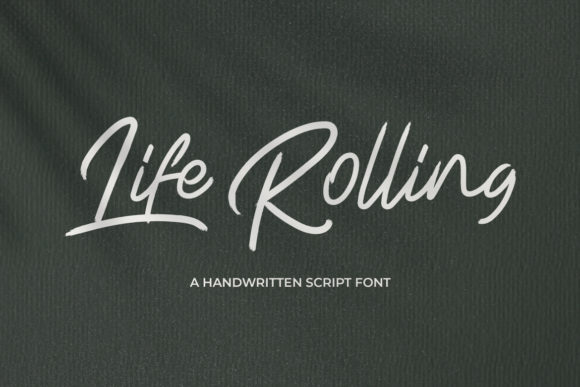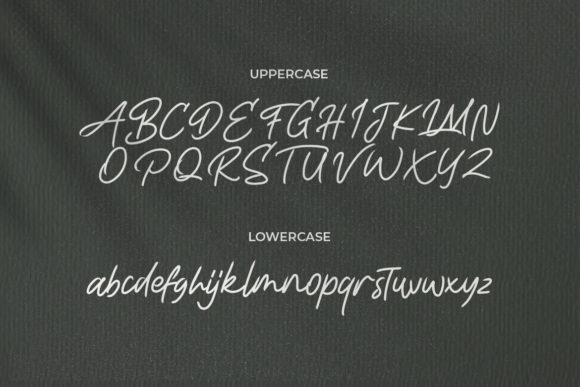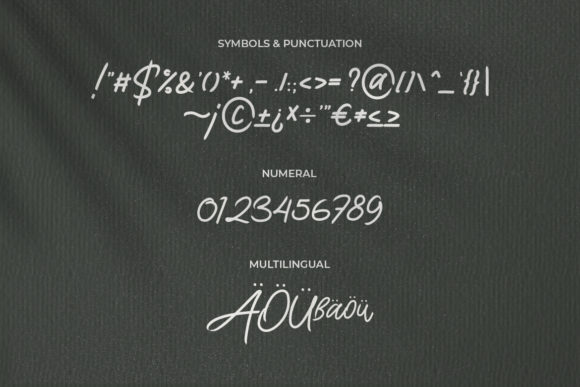
About Life Rolling Font
Life Rolling is a elegant handwriting typeface, perfectly suitable for creating quotes, wedding Invitations, lifestyle designs such as logos, titles, magazine covers and more.